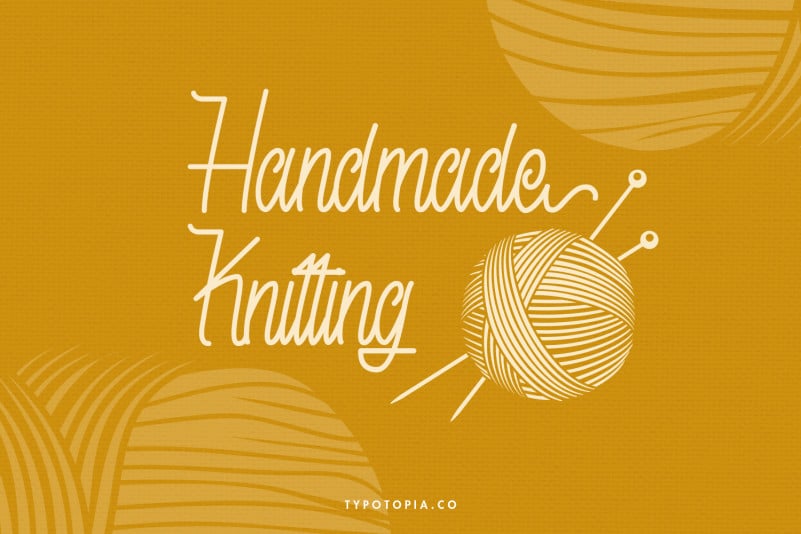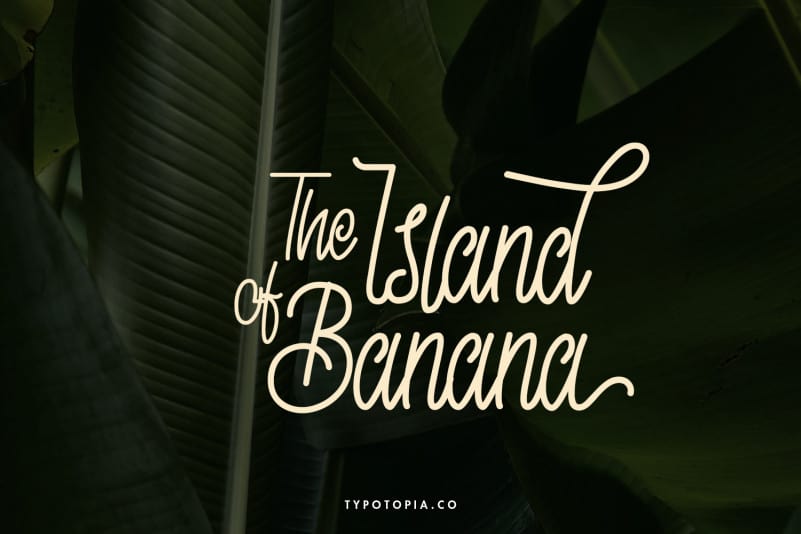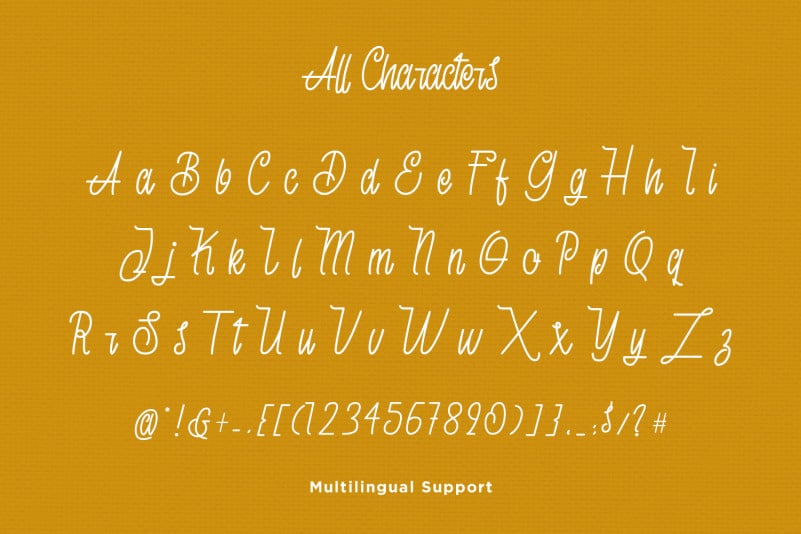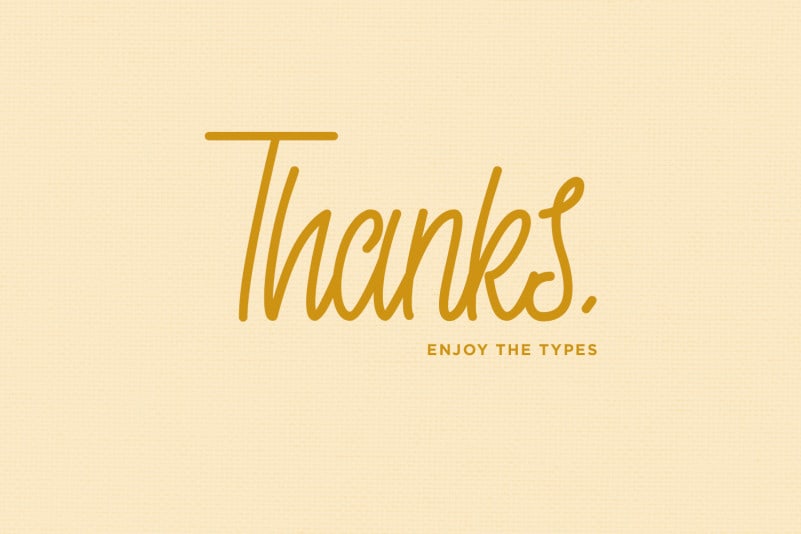
Skyline Monoline Script Font
Skyline Monoline Script Font is a Fancy & Unique Script Font for your Design that is absolutely great for your next creative project such as logos, printed quotes, invitations, cards, product packaging, headers, Logotype, Letterhead, Poster, Apparel Design, Label, and etc.
Skyline Monoline Script Font includes also support a Multilingual Characters. Making this Font a Swiss Army knife in your Font Library. It’s extremely fun to use as each word can be transformed to your liking.